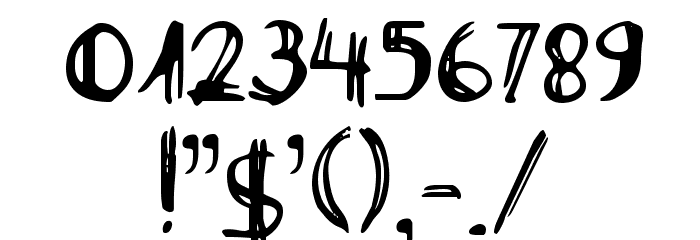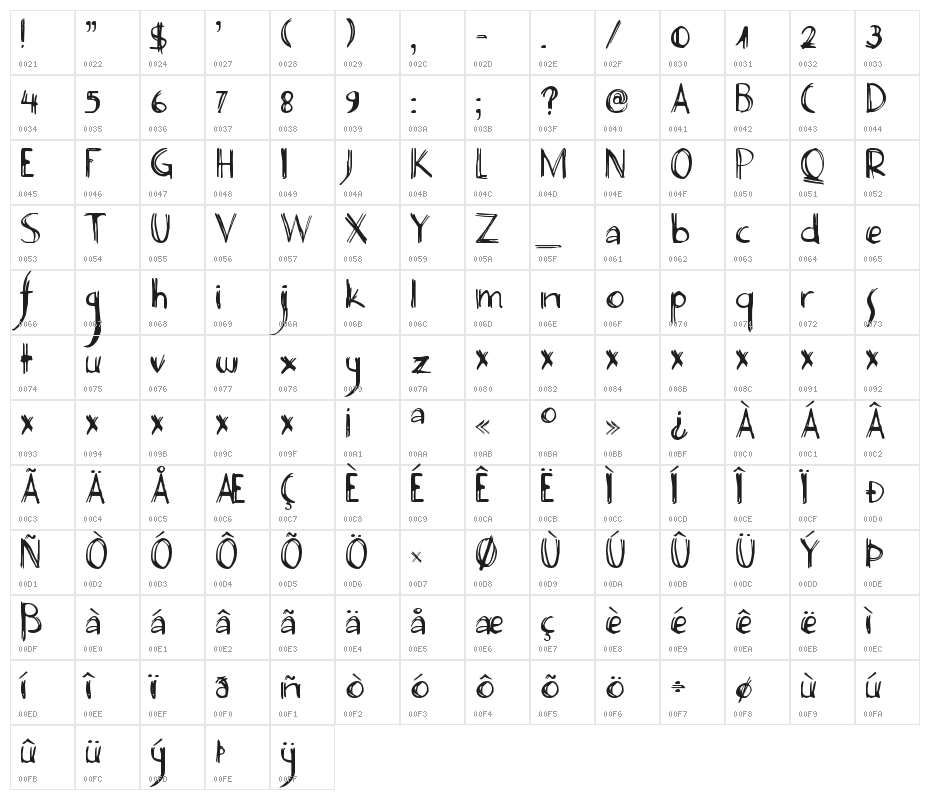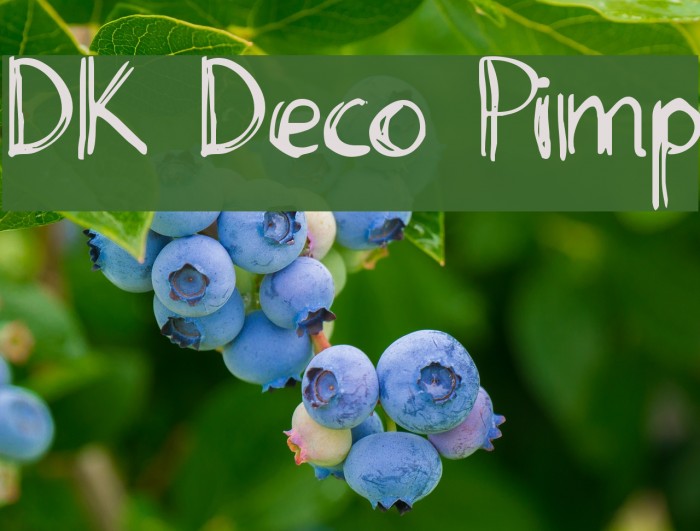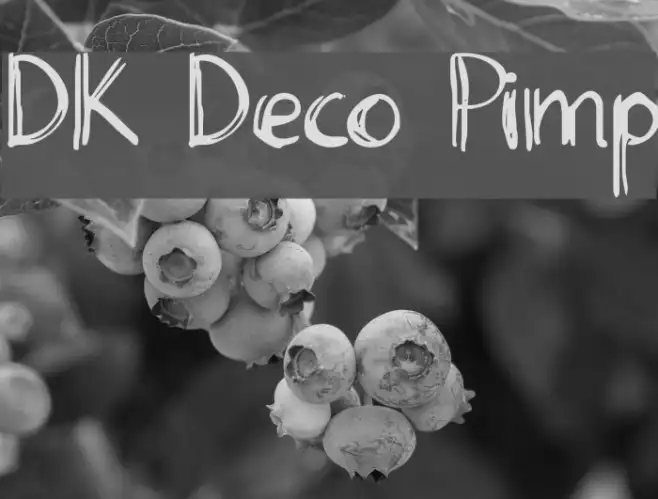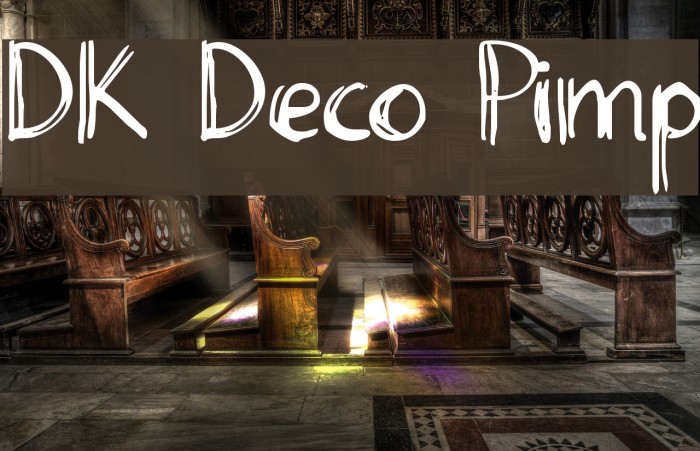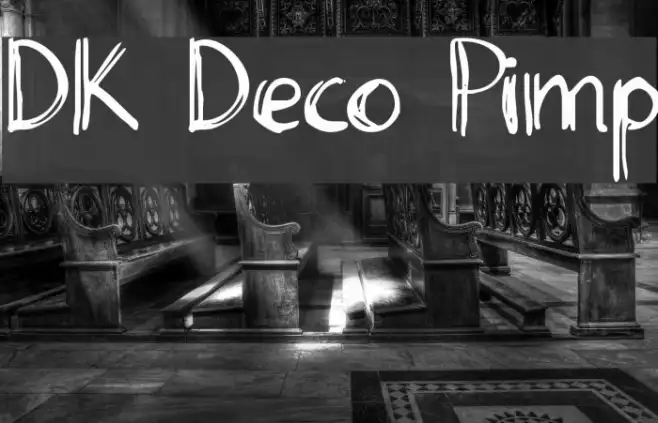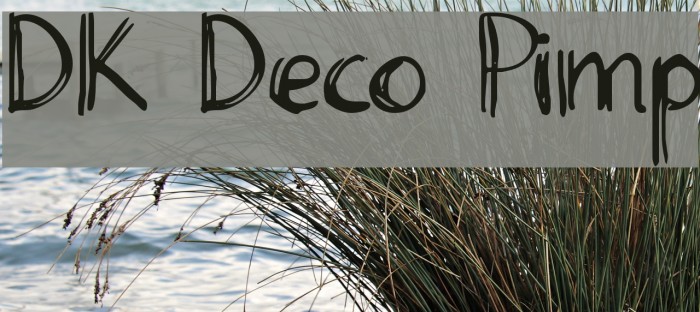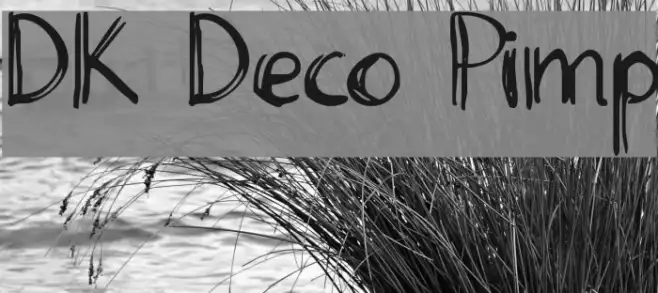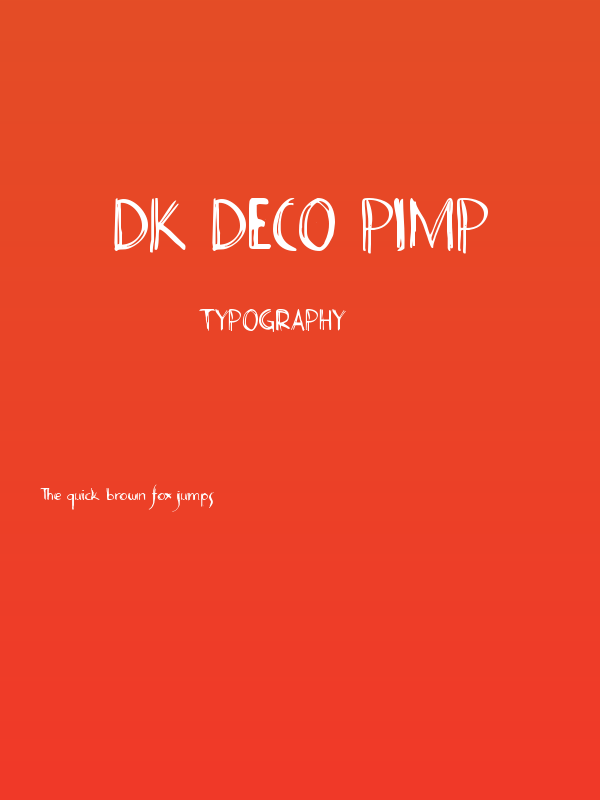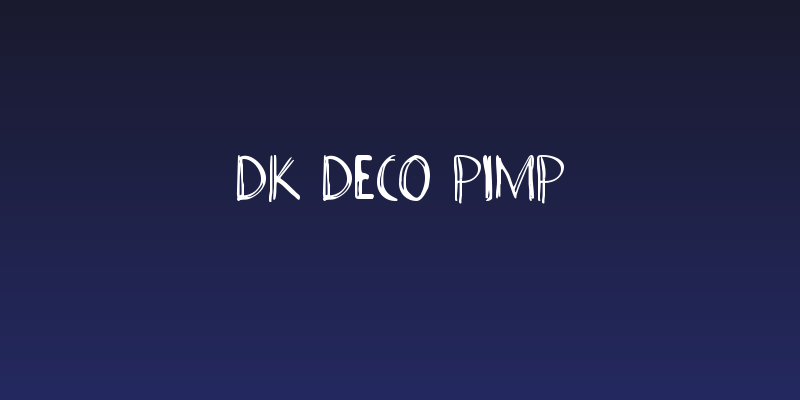
DK Deco Pimp Font
DK Deco Pimp Description
This font features a bold and artistic style with a hand-drawn appearance. The uppercase letters are characterized by uneven strokes and varying thickness, giving them a dynamic and energetic feel. The lowercase letters maintain a similar style, with some characters having exaggerated curves and angles. The numbers and special characters follow the same artistic theme, providing a cohesive look across all elements. This font's unique style makes it stand out, with its rough edges and playful design elements.
| Proposed Projects | Ideal for creative projects such as posters, album covers, and branding materials that require a bold and artistic touch. |